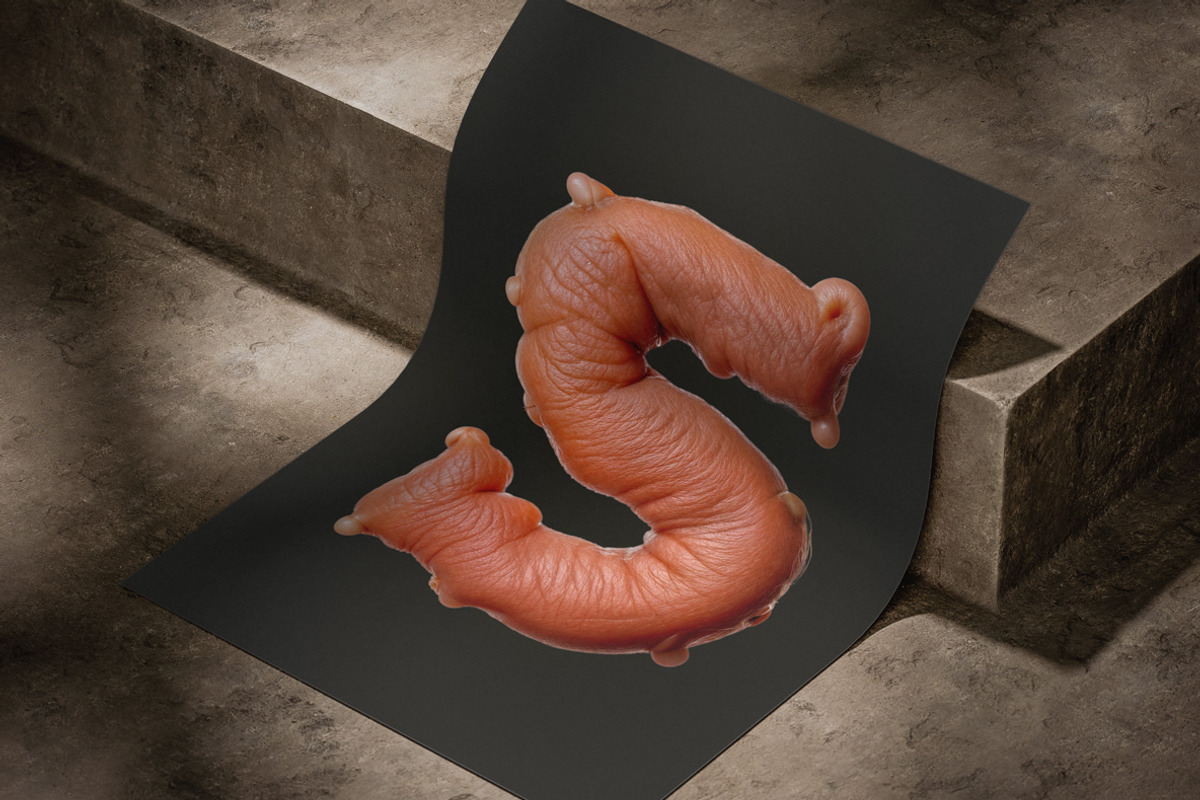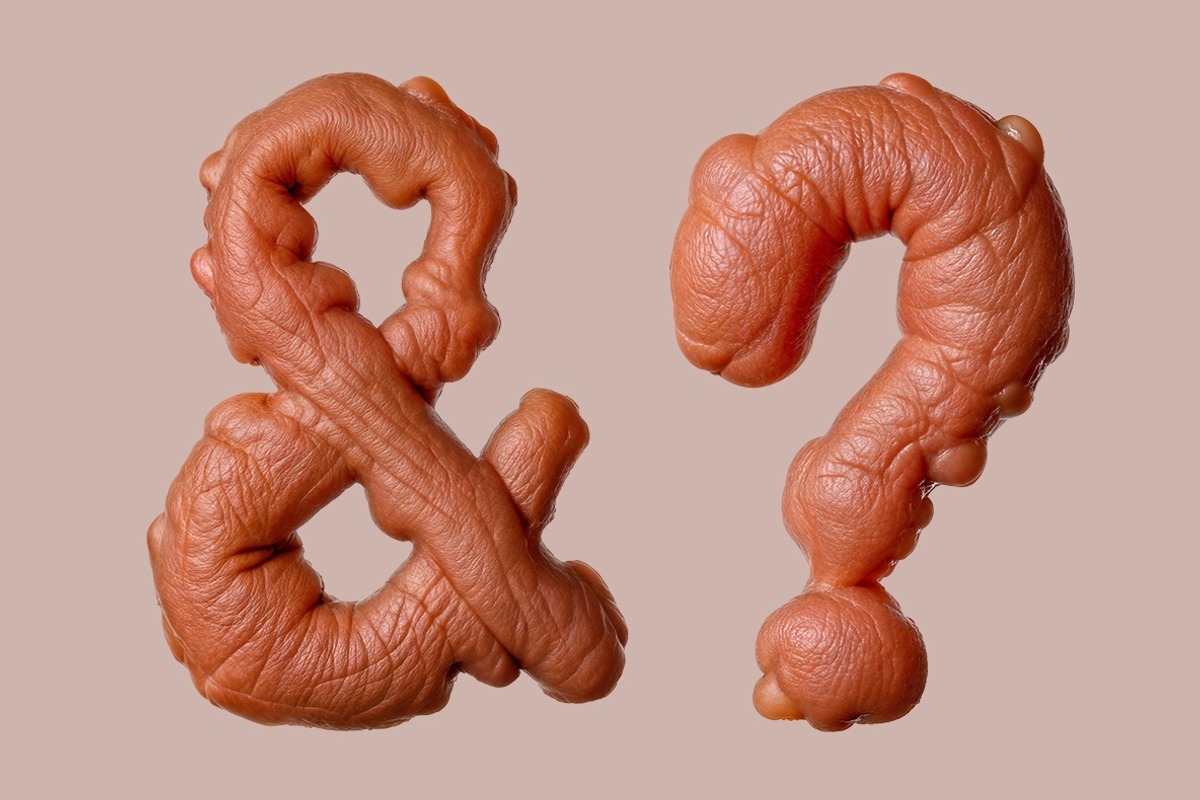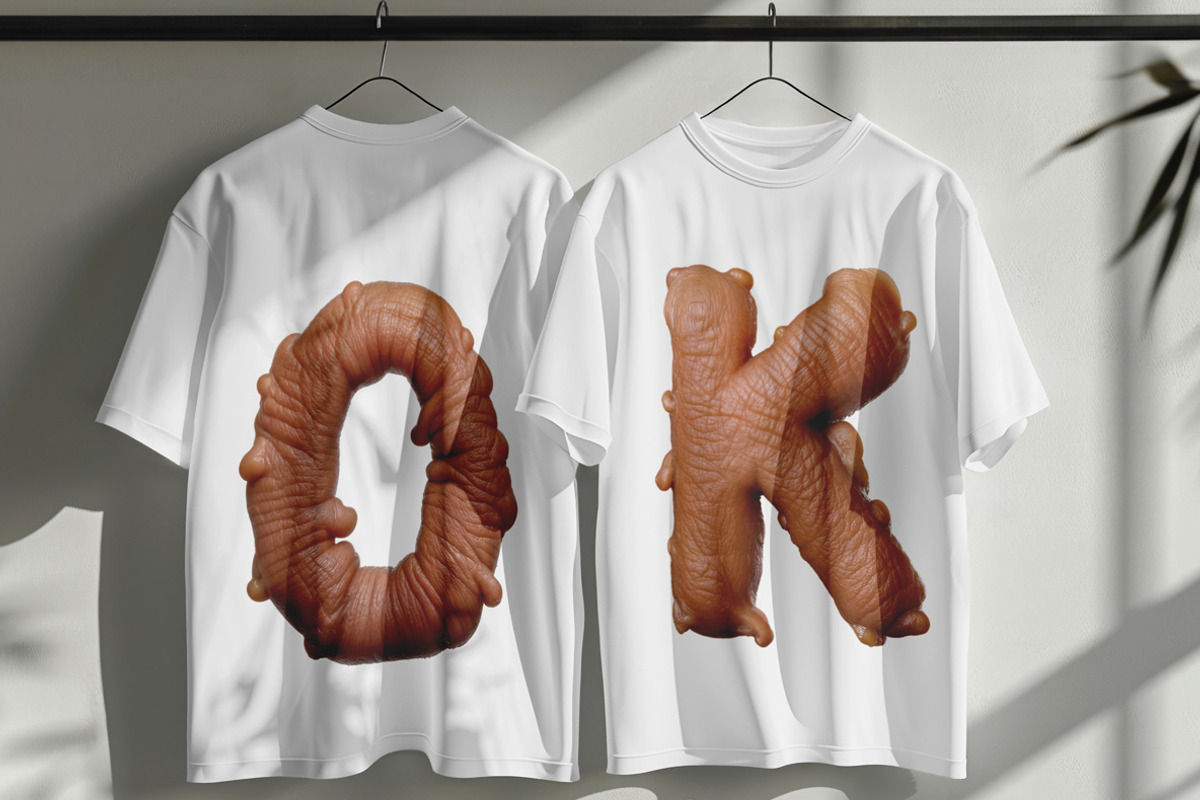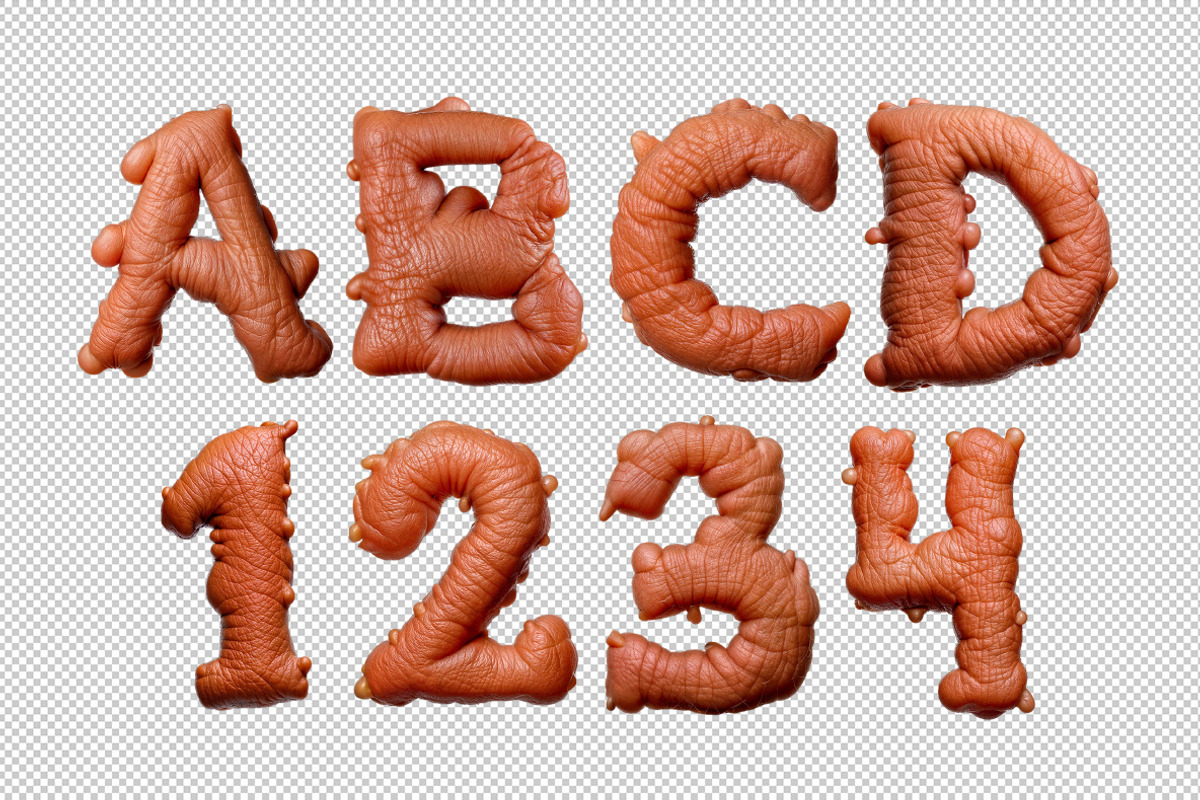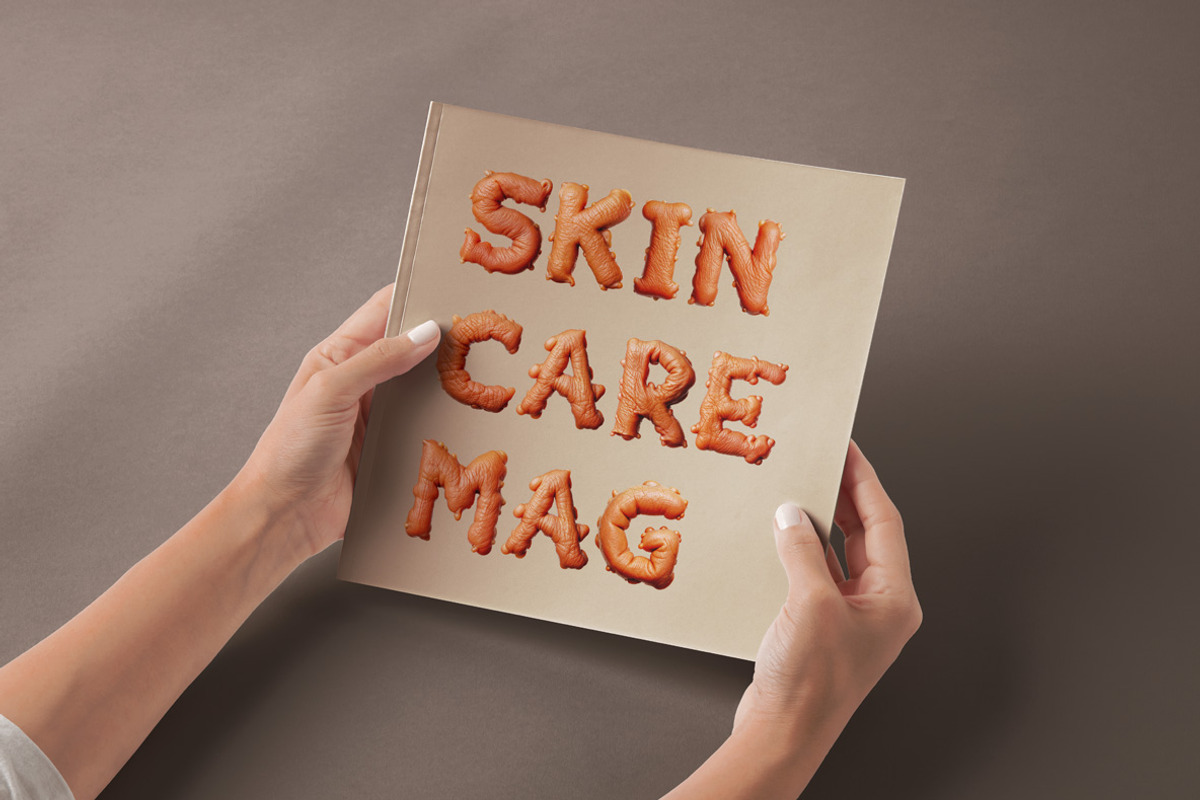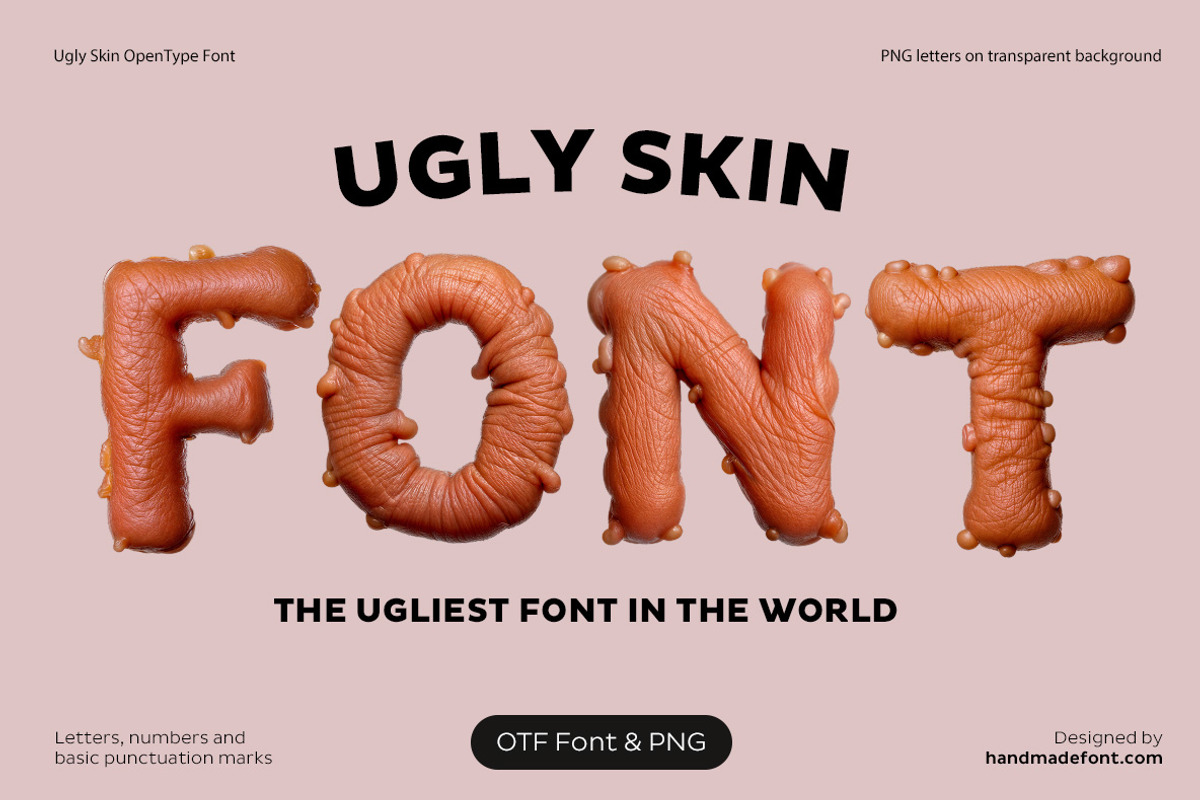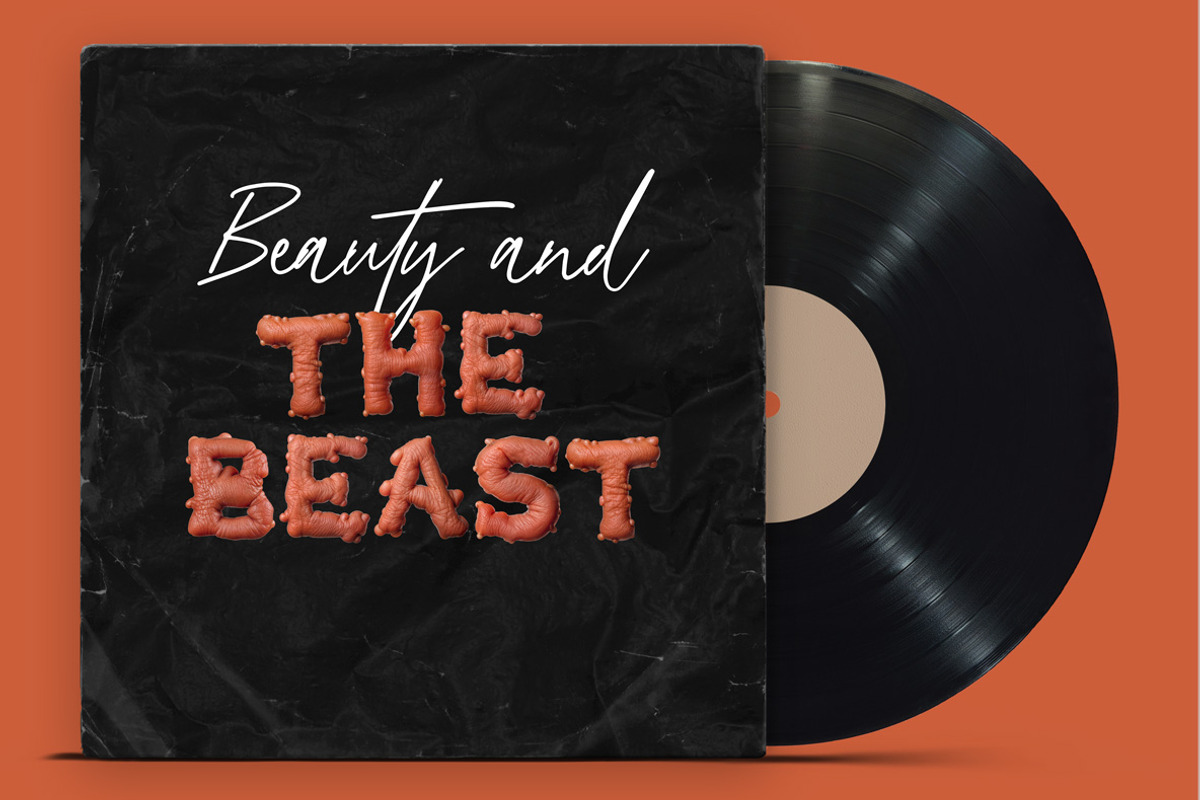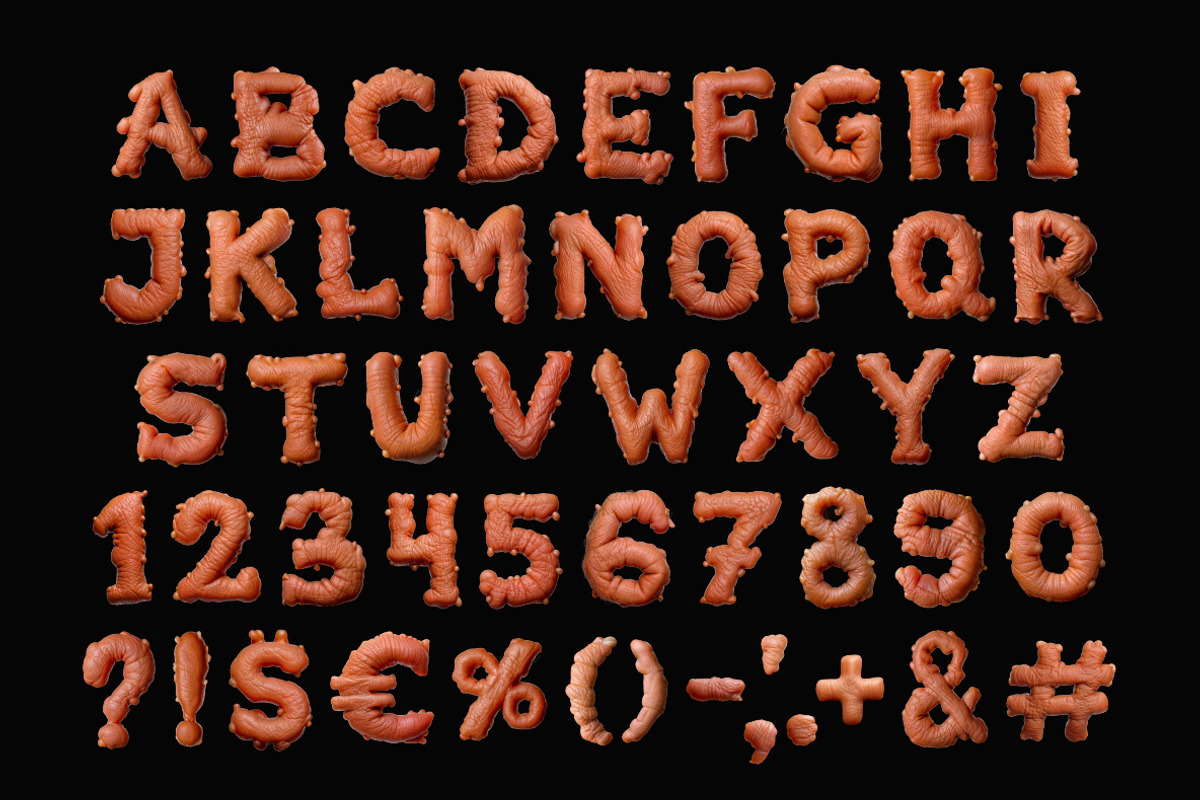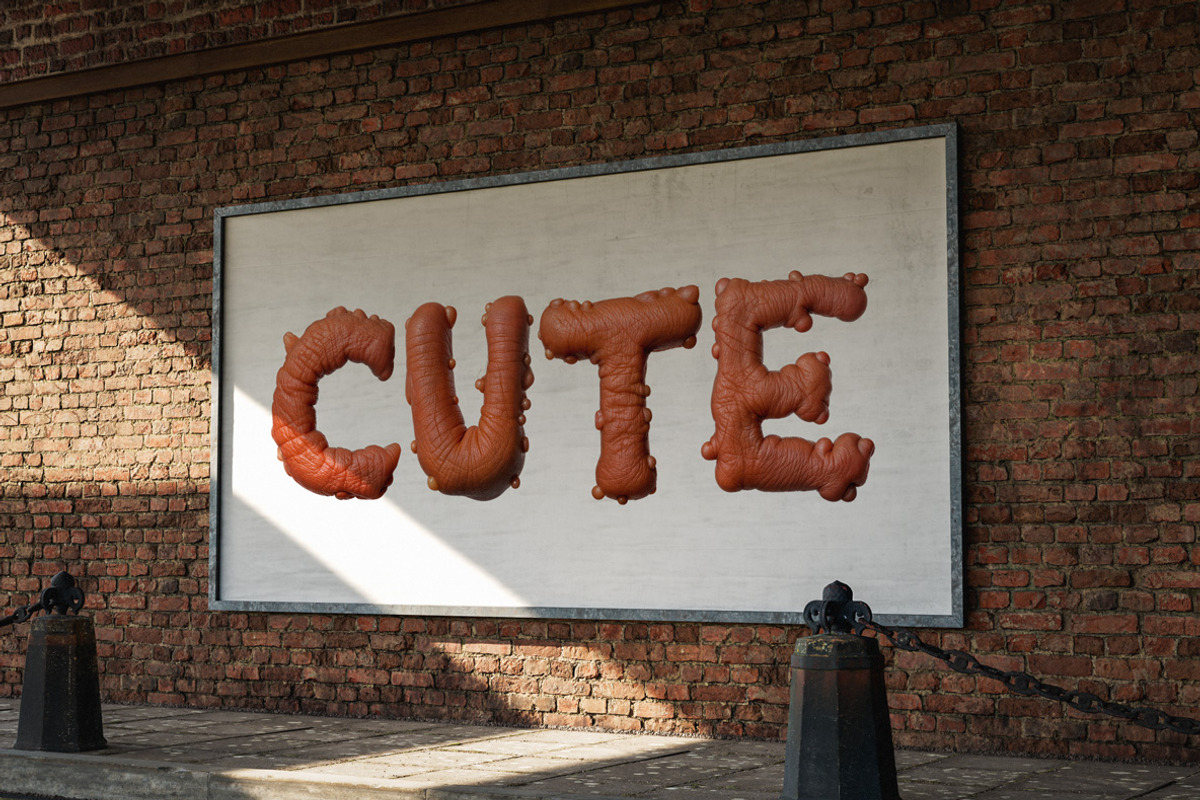
Ugly Skin Font
Skin comes alive in the Ugly Skin Font, a bold exploration of texture and imperfection. Each letter is meticulously crafted to resemble human skin, complete with wrinkles, blemishes, acne, scars, and uneven tones. This skin-inspired font transforms typography into a raw and surreal art form, embracing dark spots, redness, and folds to create an uncanny yet captivating alphabet. With lifelike contours and a fleshy realism, the Ugly Skin Font challenges traditional aesthetics, offering a striking blend of organic beauty and unsettling creativity. Perfect for daring designs, it turns skin imperfections into a unique, unforgettable visual language.